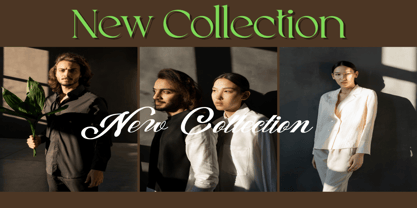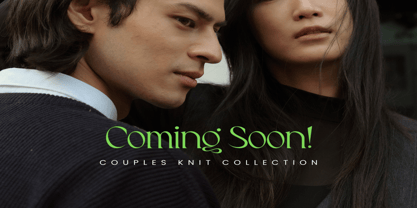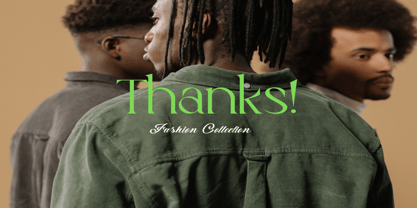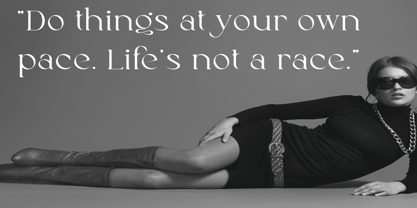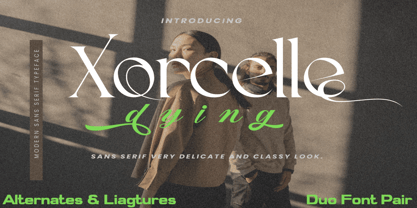
Xorcelle
The Xorcelle Font Family was designed by Daniel Pelavin and published by Dream Font. Xorcelle contains 2 styles and family package options.
Xorcelle is a spectacular duo font (sans serif and script). Incredibly versatile, this font fits a wide pool of designs, elevating them to the highest levels. Add this font to your favorite creative ideas and notice how it makes them come alive!